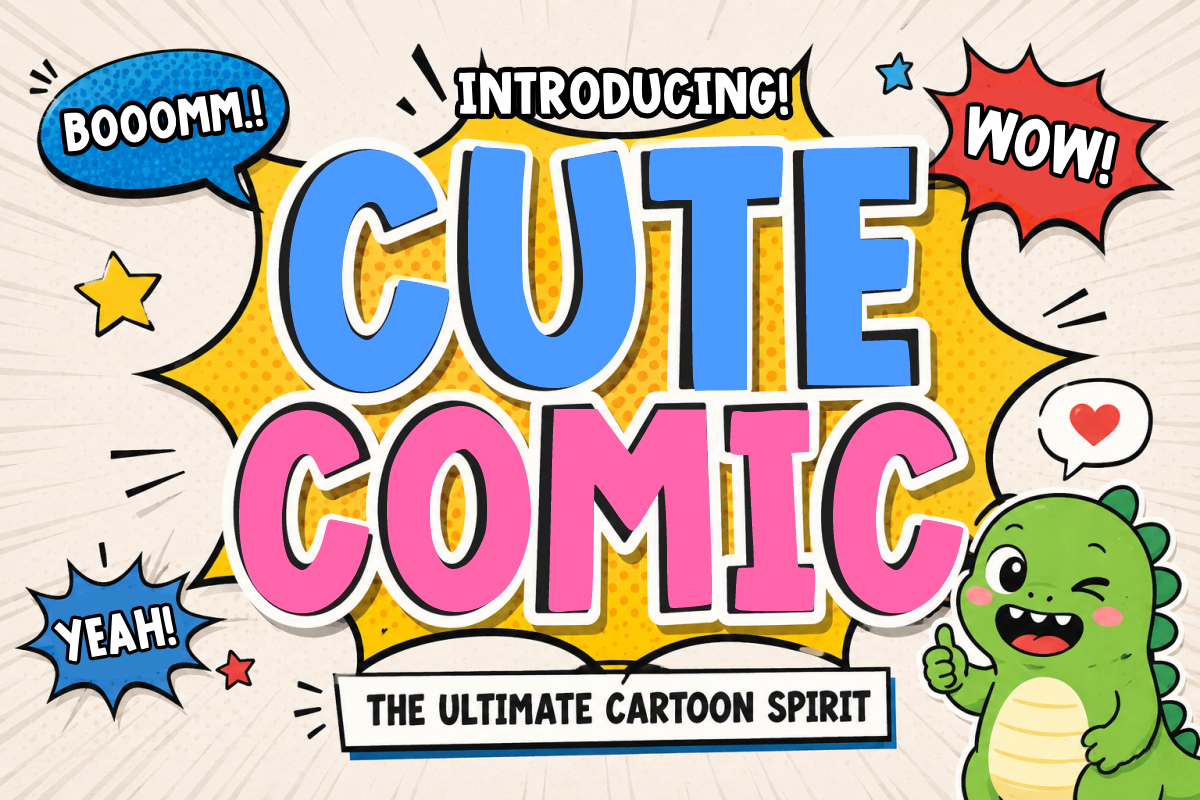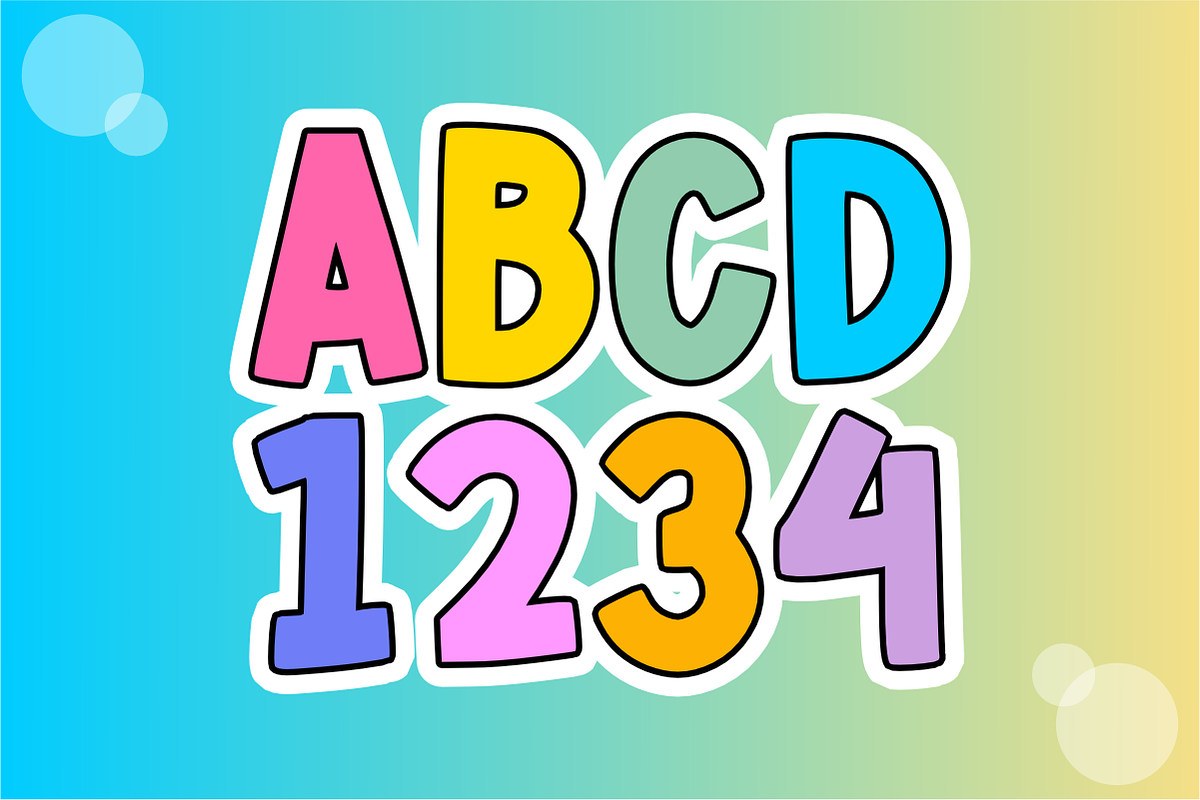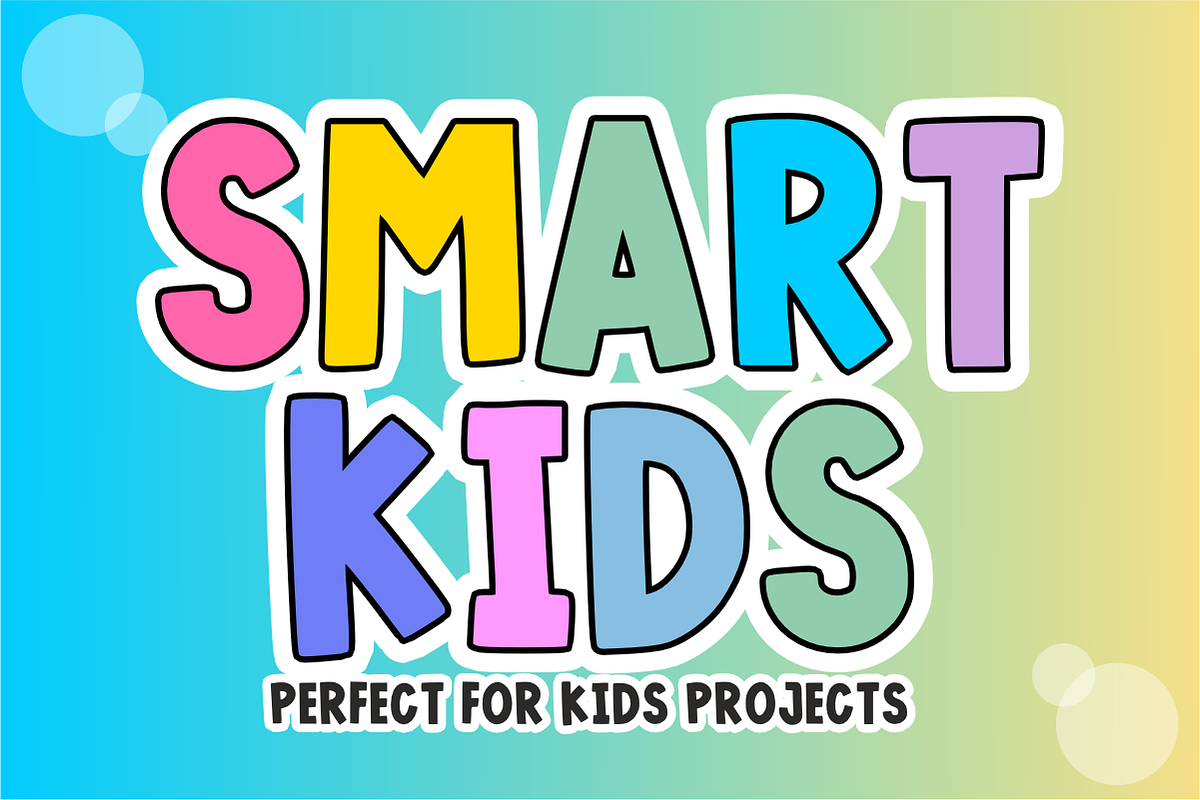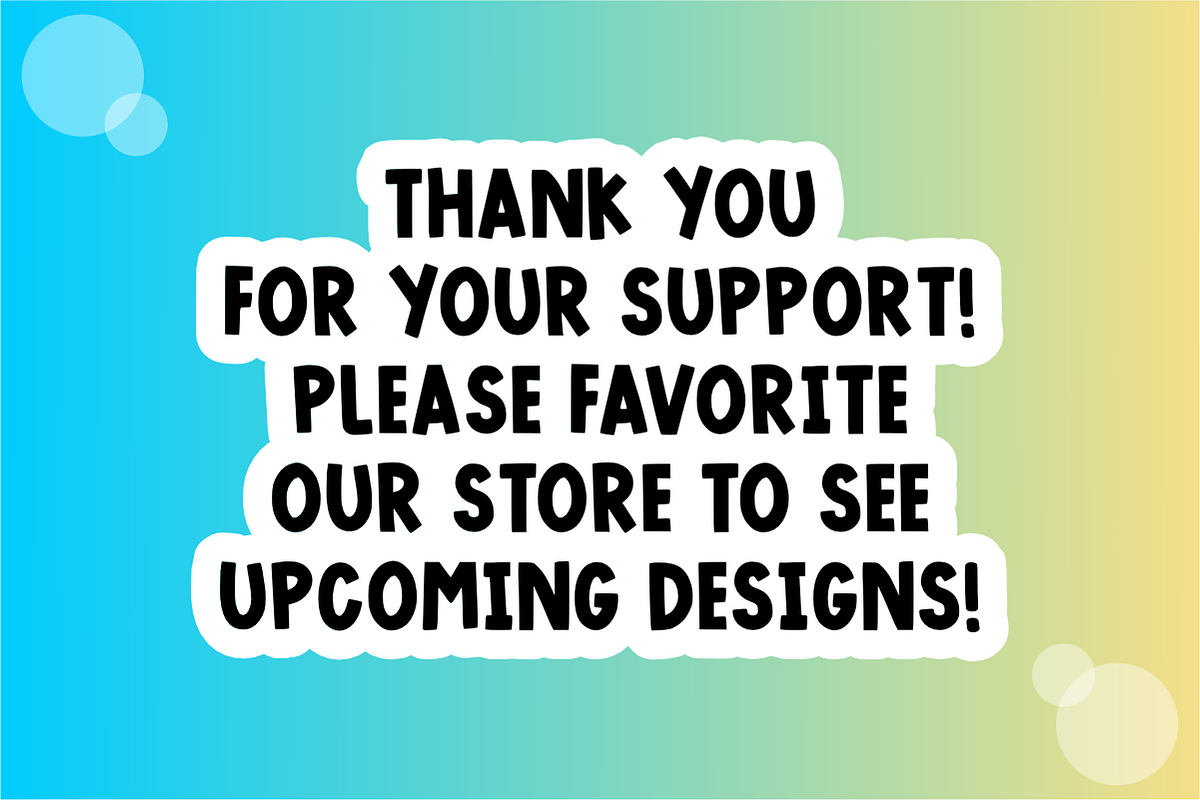
Cute Comic - Playful Cartoon Font
Cute Comic is a fun, energetic display font featuring bold, bubbly letterforms bursting with pop-art action and playful cartoon charm. Perfect for kids' storybooks, comic speech bubbles, party decor, and creative craft projects, this lively font adds an action-packed pop to all your graphic designs. Every character is cleanly vectorized to guarantee high-resolution prints and smooth, effortless cutting on Cricut and Silhouette machines.
Uppercase Character Set
Numbers & Basic Punctuation